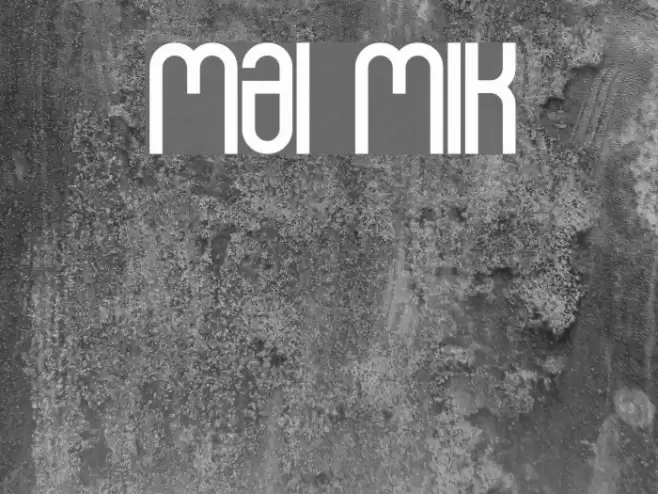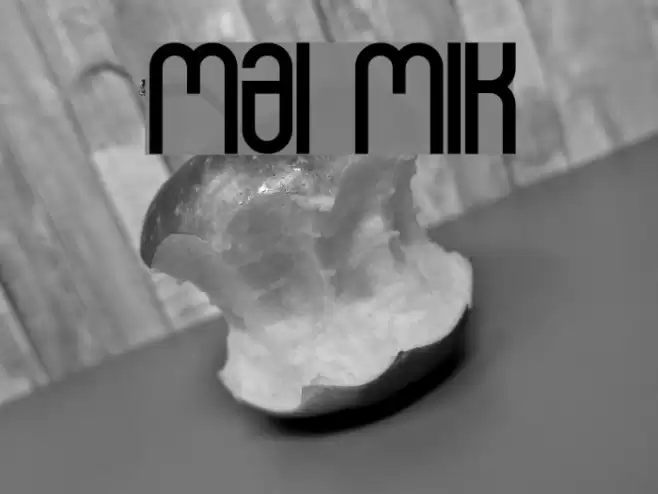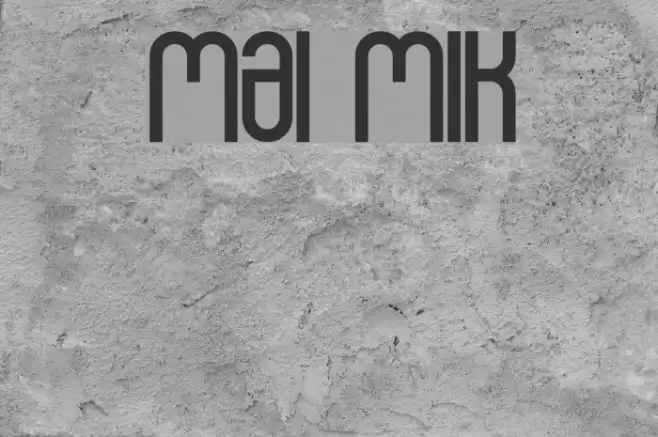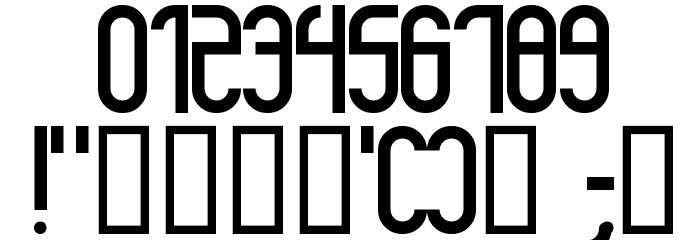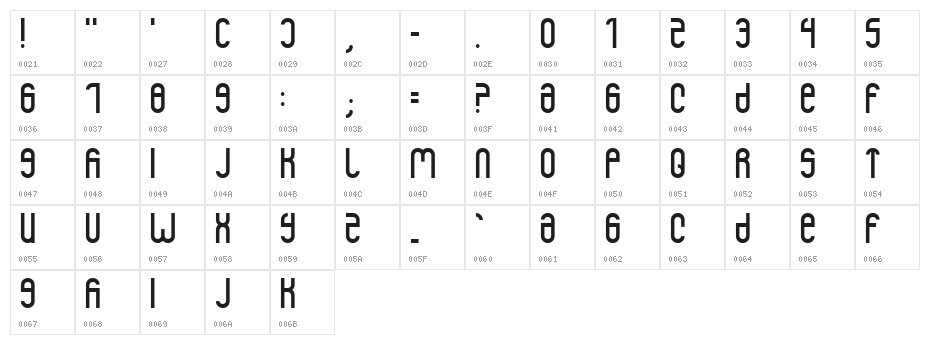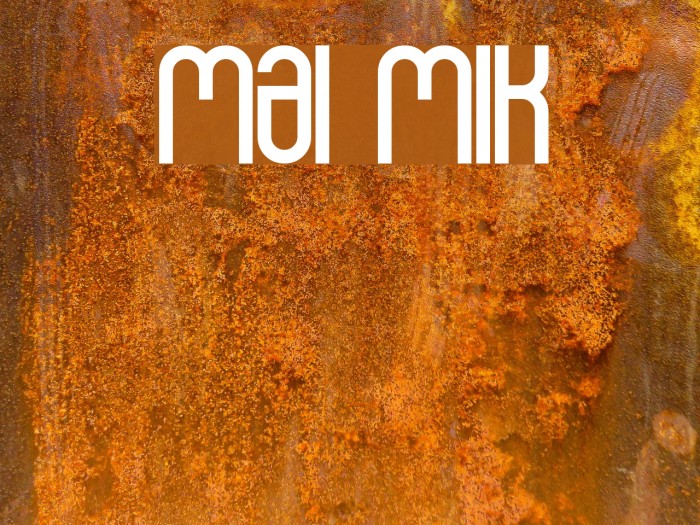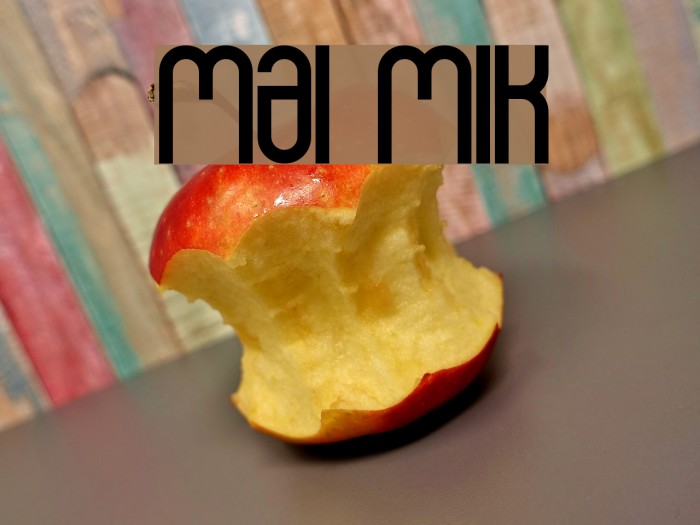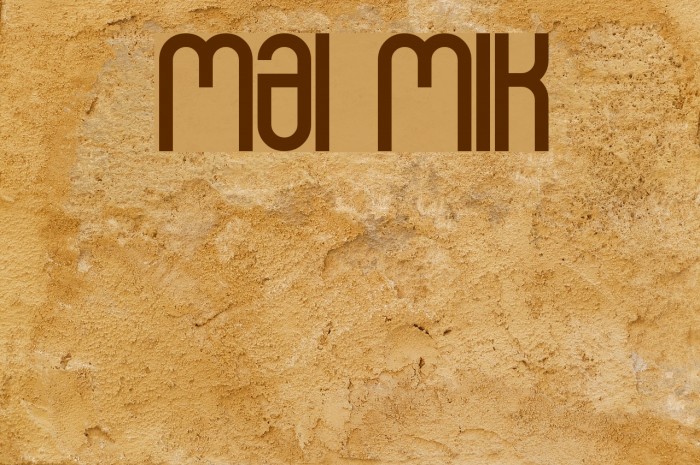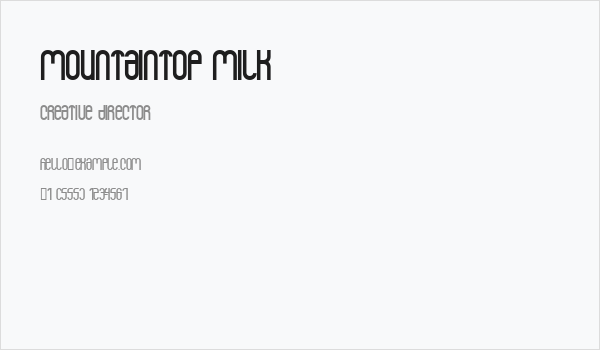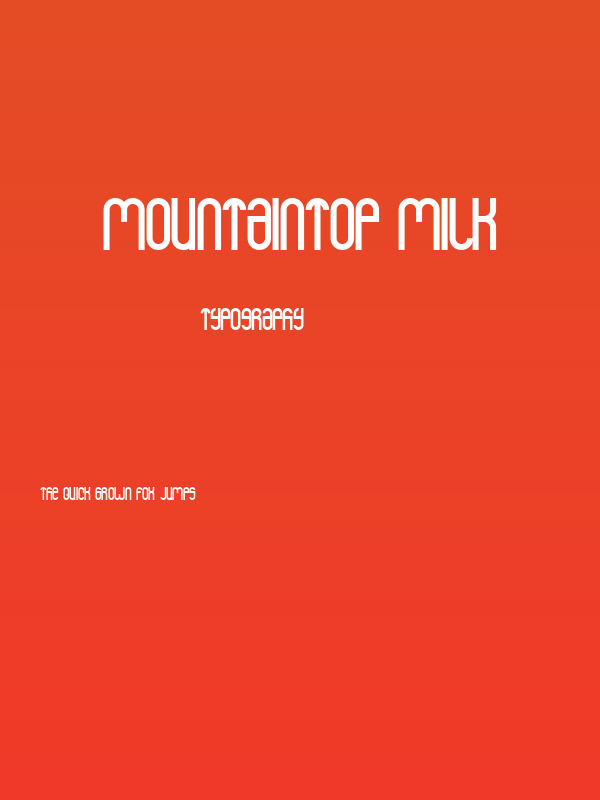
Mountaintop Milk Font
Mountaintop Milk Description
This font features a unique and modern design with a geometric and symmetrical style. The characters are constructed with consistent stroke widths, creating a uniform appearance. The uppercase and lowercase letters share similar heights, contributing to a cohesive look. The rounded edges and closed shapes give it a futuristic and clean aesthetic. The numbers and special characters maintain the same design principles, ensuring a harmonious overall appearance. This font is ideal for projects that require a contemporary and distinctive look.
A modern, geometric font with consistent stroke widths and rounded edges from Stencil fonts.
- Proposed Projects: Ideal for branding, posters, digital media, and any project seeking a modern and unique aesthetic.